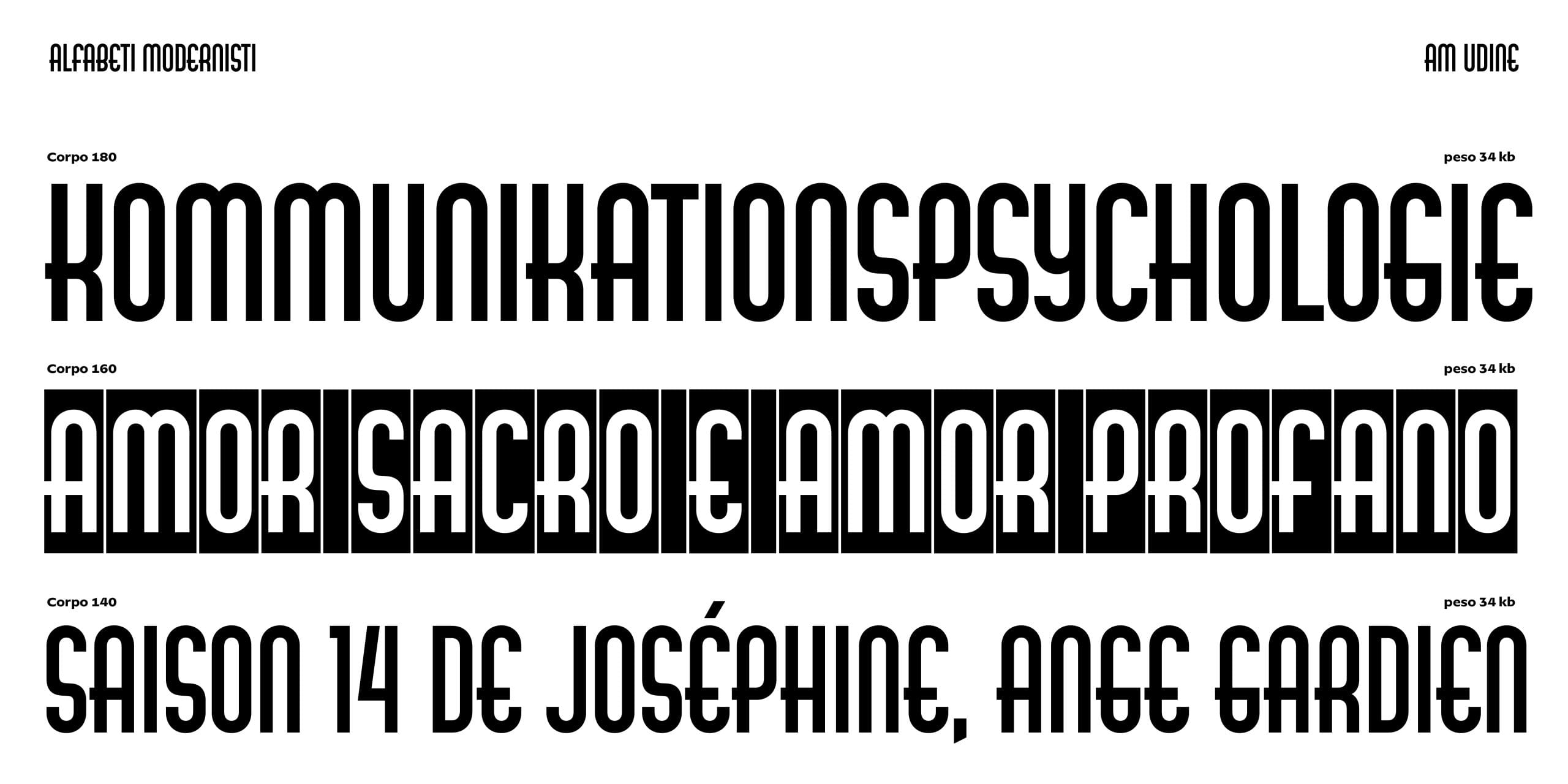
Udine
Udine is an all-caps, modular sanserif that shows clear Art Deco influences in its narrow proportions and geometric shapes. This type design is very similar to Neon, one of Nebiolo’s most iconic typefaces. In fact, it is similar to the point that we would be talking about plagiarism if they had not been created within the same company.
Michele Patanè
Udine was produced as a wood type by the Nebiolo company in Turin. It first appeared in a 1933 catalogue in five sizes, from 8 to 40 lines (roughly from 100 to 500 points). Letters H and O are the basic modular shapes used to construct the entire alphabet. Almost every letter has the same width, with counters that create a predictable, regular pattern. A few letters such as A, B, E, G, H, K, P and R display horizontal strokes that extend leftwards. This feature, along with the low barycentre of all letters with central strokes, is part of the Art Deco vocabulary.
The resemblance to Neon is so striking that it is likely that Udine was the first attempt at a modular typeface which, after further development, became the Neon family. Giulio Da Milano and Alessandro Butti, the former as an art director and the latter as a draftsman, are no doubt the designers of this type (though reducing Butti’s contribution to preparing the pattern drawing for production probably does little justice to him). After the Second World War, the production of wood-type Neon made Udine redundant, and it disappeared from Nebiolo’s catalogues.
AM Udine digital revival reflects the original with great accuracy. ‘Some details – says the designer Michele Patanè – have been revised for optimal performance in the digital environment. Firstly, the distinctive monolinear strokes of the original model have been fine-tuned by reducing the horizontal strokes by a few units. Secondly, slight adjustments were made to the curves and the transitions between curves and straight lines, and the typeface’s modular appearance was also carefully crafted to avoid the impression of basic geometric shapes glued together. All of this compensates for the unevenness perceived when looking at the letters on screen, while retaining a sense of analog stiffness that is part of the personality of the original typeface.’
The original Udine was offered along with a negative version, in which each character is set in a black rectangle, and with decorative pieces to be placed at the beginning and end of titles of one or a few words. These features are available in AM Udine digital revival through OpenType features.
Regular
Negative shapes + front and end pieces (SS 01)
Alternative @ (SS 02)
Original ampersand (SS 03)
2nd alternative ampersand (SS 04)